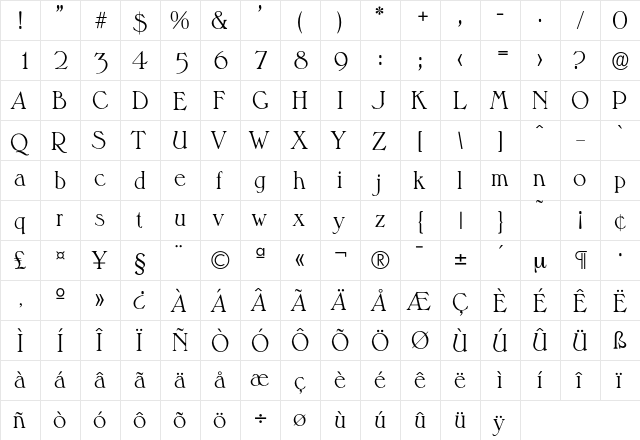
Melbourne-Light Regular
Design Context for Melbourne-Light Typeface
Melbourne-Light is a composed and adaptable typeface that performs quietly and consistently across a wide range of design contexts. The delicate stroke weight brings airiness and refinement to layouts.